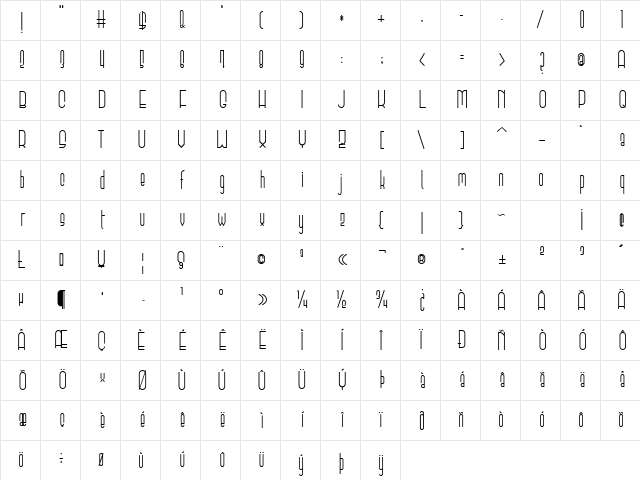
Complete Elevant (by pelash) Regular glyph index. Displaying only characters natively supported by Elevant (by pelash) Regular font.
Elevant (by pelash) is a composed and adaptable typeface that performs quietly and consistently across a wide range of design contexts.